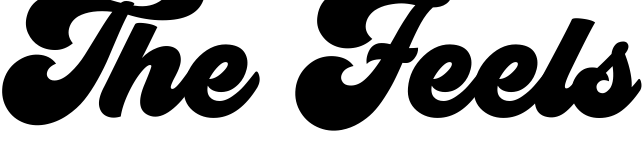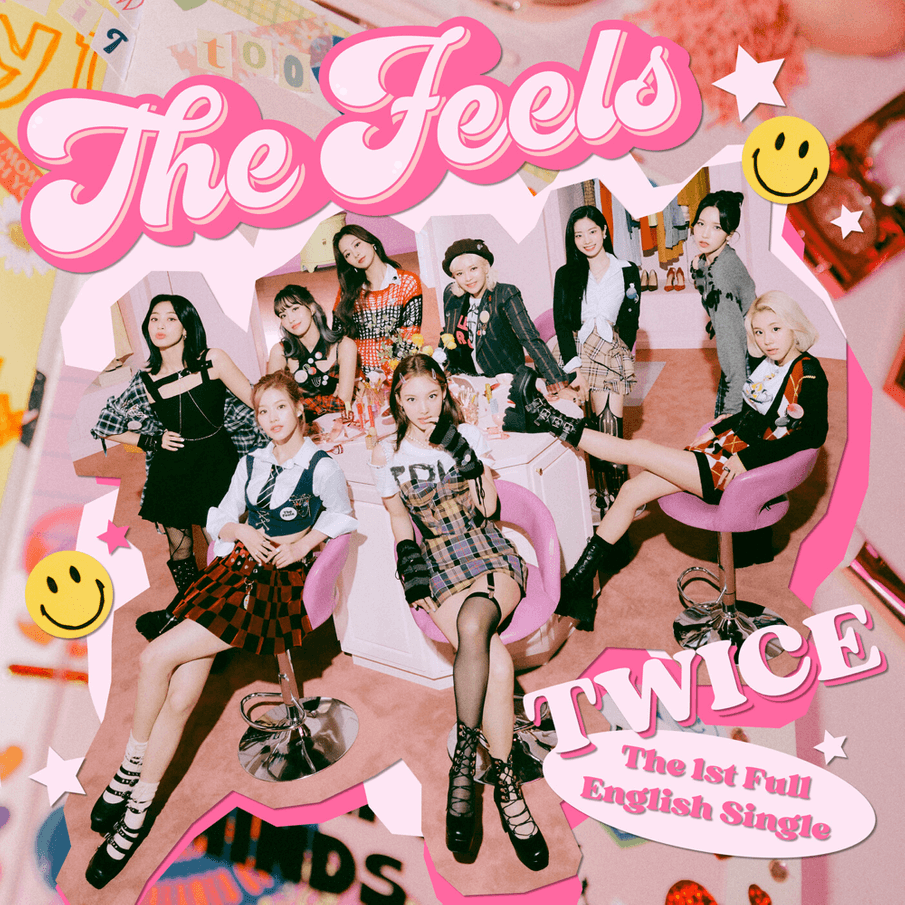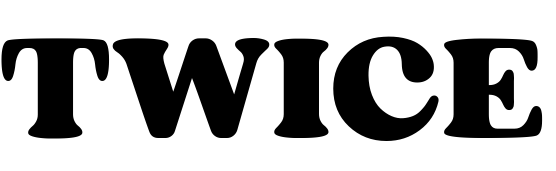
The Feels (Twice) Font
Fonts in UseThe Feels is the second Korean extended play by the South Korean girl group, Twice. The album features six tracks, including the lead single "Feel Special," which topped the charts in South Korea and won several awards.
The digital cover's title features the retro script font named Groovy, designed by Hendra Pratama, while the group name and other text use the Sergio Trendy font from Kulokale.